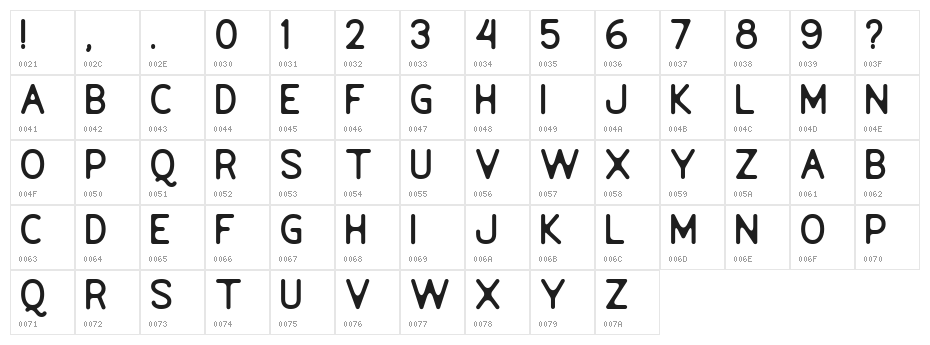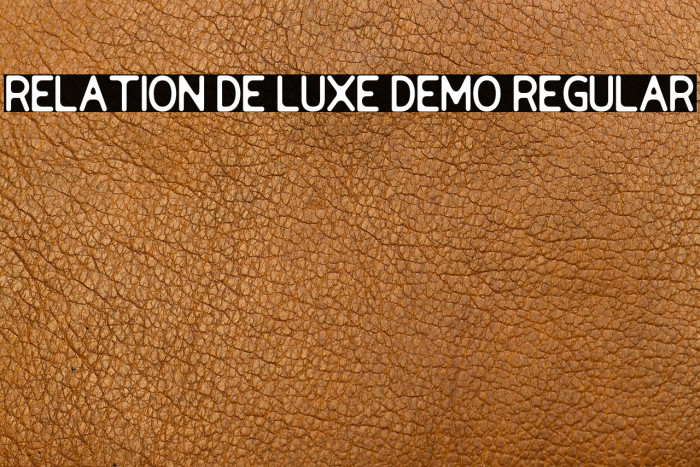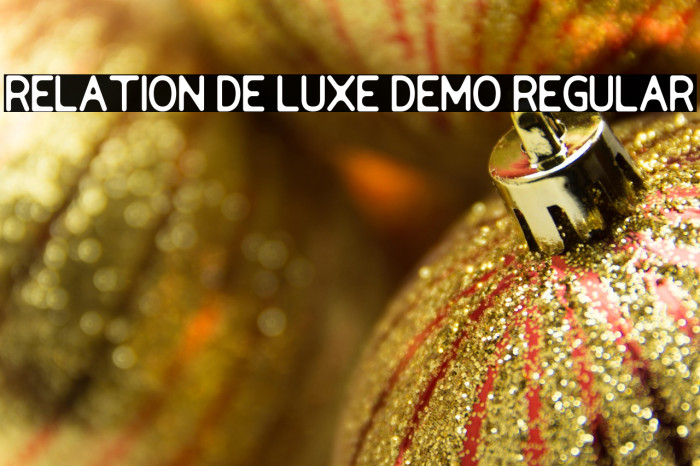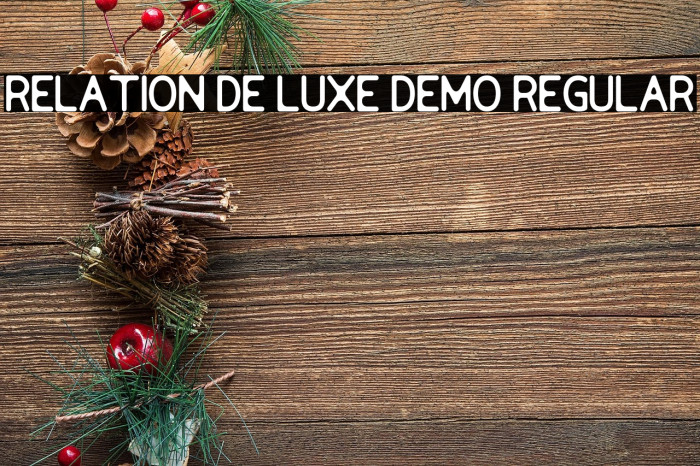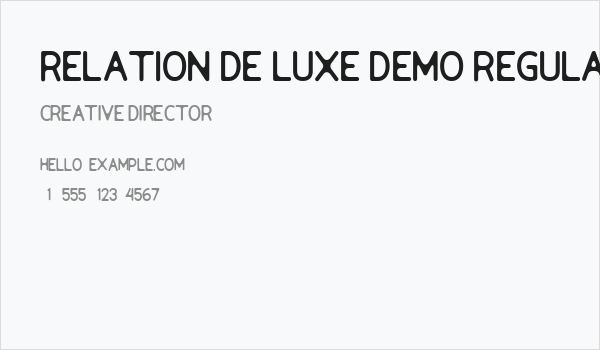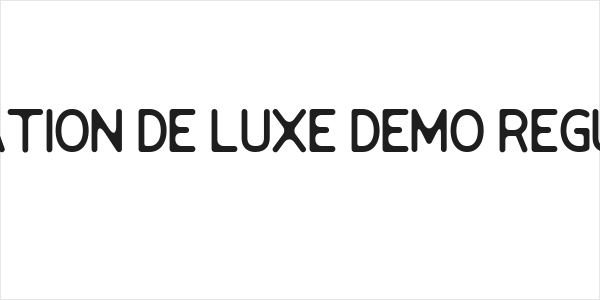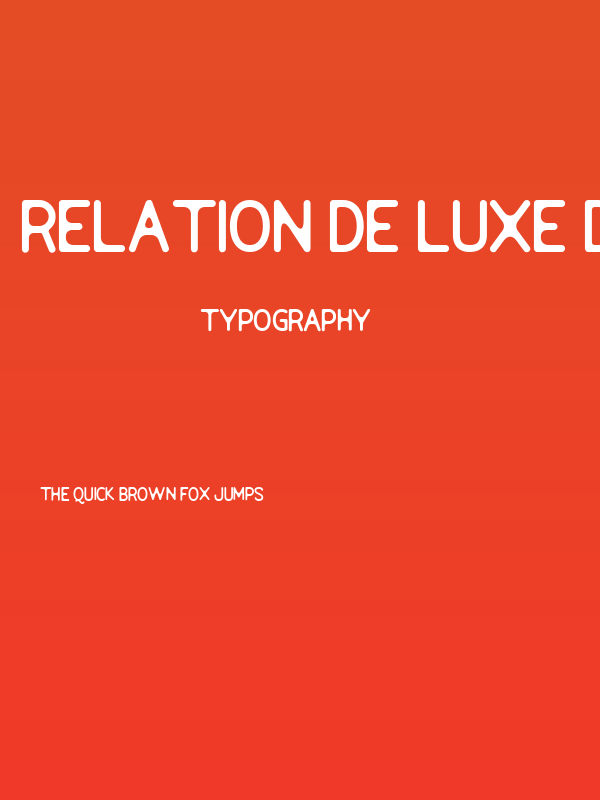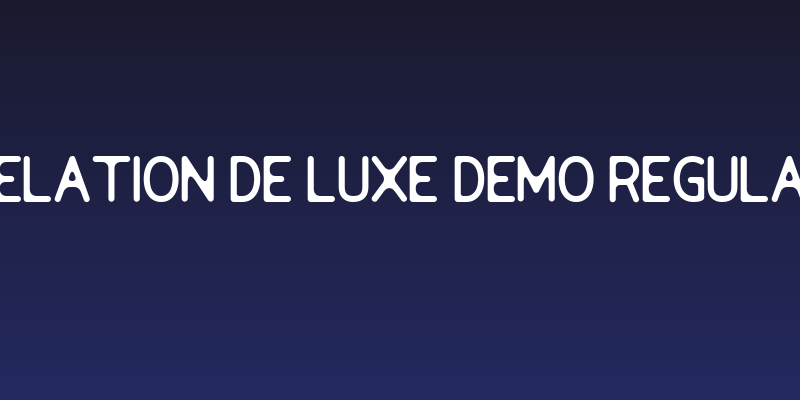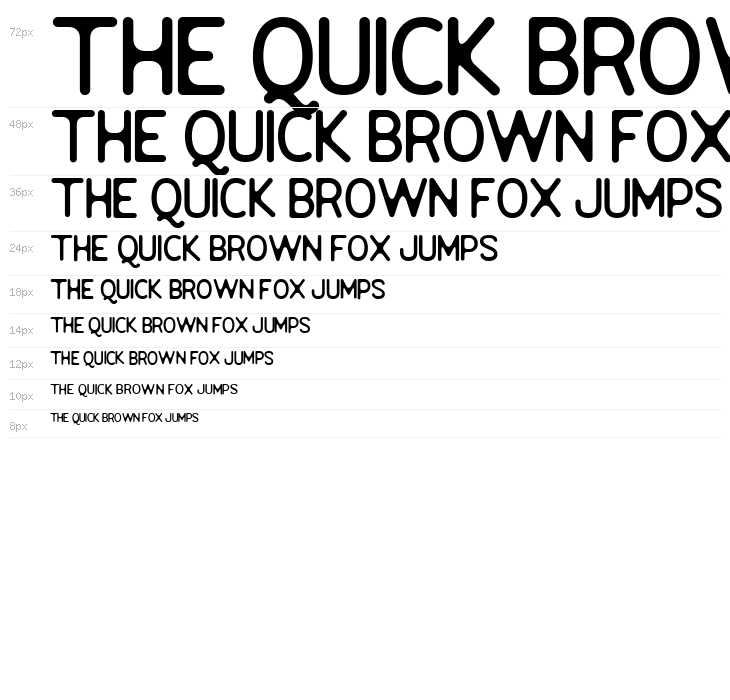
Relation De Luxe DEMO Regular Font
Relation De Luxe DEMO Regular Description
This font features a bold, rounded design with a playful and modern aesthetic. The characters are evenly spaced, providing a clean and approachable look. The uppercase and lowercase letters maintain a consistent style, with smooth curves and a uniform stroke width. The numbers are equally rounded, complementing the overall design. Special characters are included, enhancing its versatility. This font is ideal for projects that require a friendly and contemporary touch, such as children's books, casual branding, or playful marketing materials.